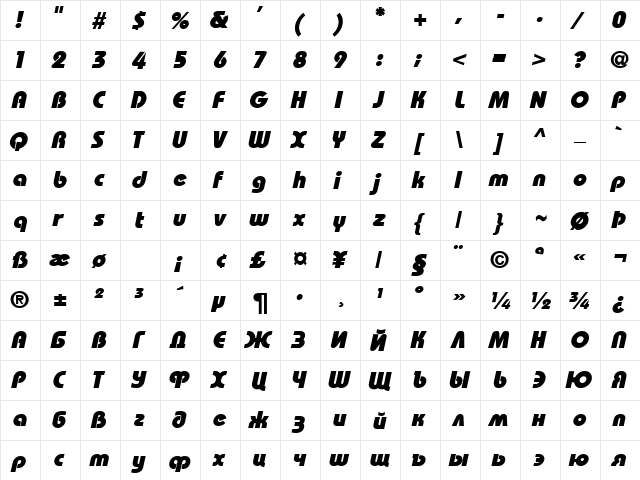
Bahamas Heavy Italic Regular
Design Context for Bahamas Heavy Italic Typeface
Bahamas Heavy Italic takes a measured approach to typography — its balanced proportions and neutral character make it a reliable workhorse for both digital and print work. Its italic angle brings a sense of urgency and motion to the letterforms.
Pro Tip: Use Bahamas Heavy Italic for emphasis, pull quotes, and subheadings where its slanted energy can add rhythm to the layout.